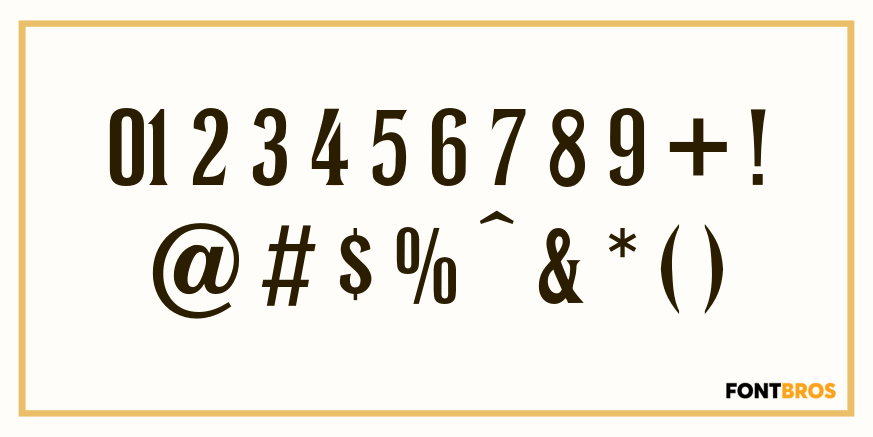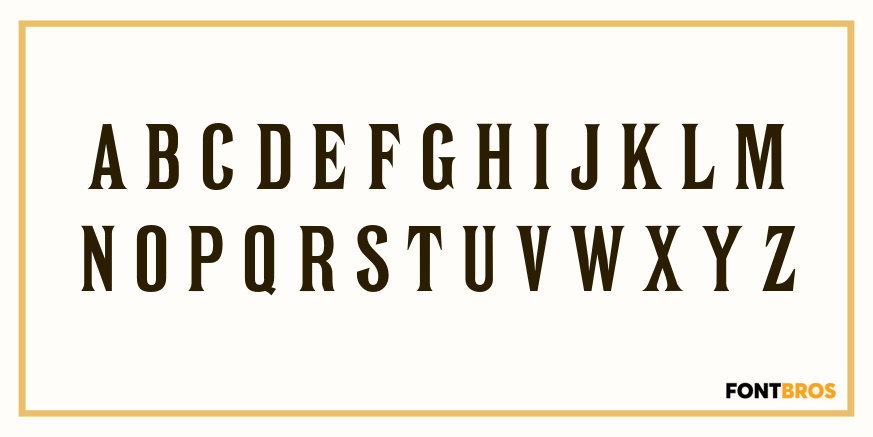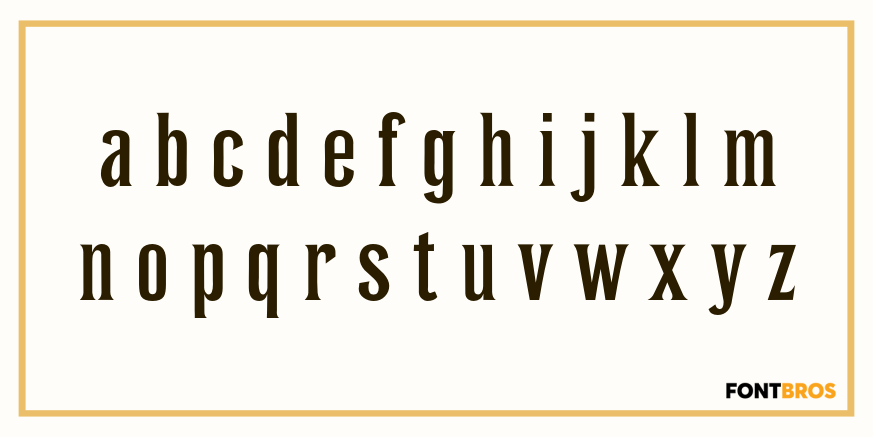
Estienne
Many fonts have carried this name. Ours goes back to just before 1900 in France. This general style had considerable popularity among job printers all over Europe. We have even seen it used for name imprints on medical school diplomas, which seems a bit grotesk.
Surely you can do something better with it.